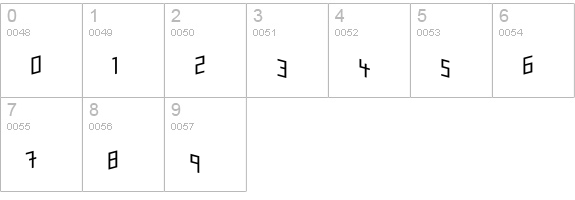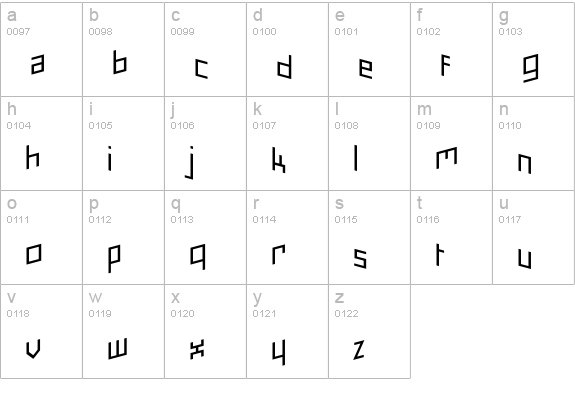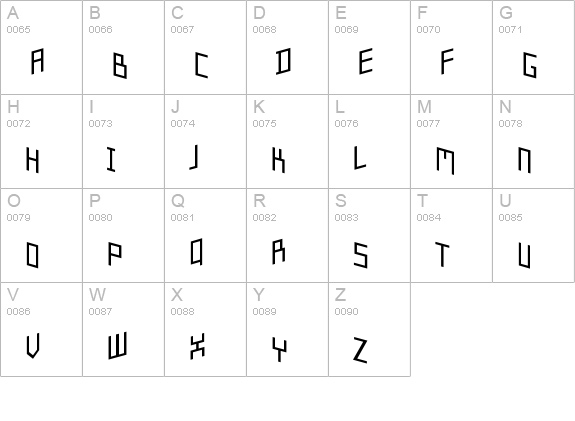
Minimum-BongMedium font is a sleek and modern typeface that exudes simplicity and elegance. With its clean lines and minimalist design, this font is perfect for a wide range of design projects, from branding to web design to print materials. The bold and medium weights of Minimum-BongMedium make it versatile and easy to read, while still maintaining a sense of sophistication. Best of all, Minimum-BongMedium is available for free download at FontsMarket.com. Whether you're a professional designer looking for a new font to add to your collection or a hobbyist looking to spruce up your personal projects, Minimum-BongMedium is a fantastic choice. Don't miss out on this fantastic font - download it today and take your designs to the next level!